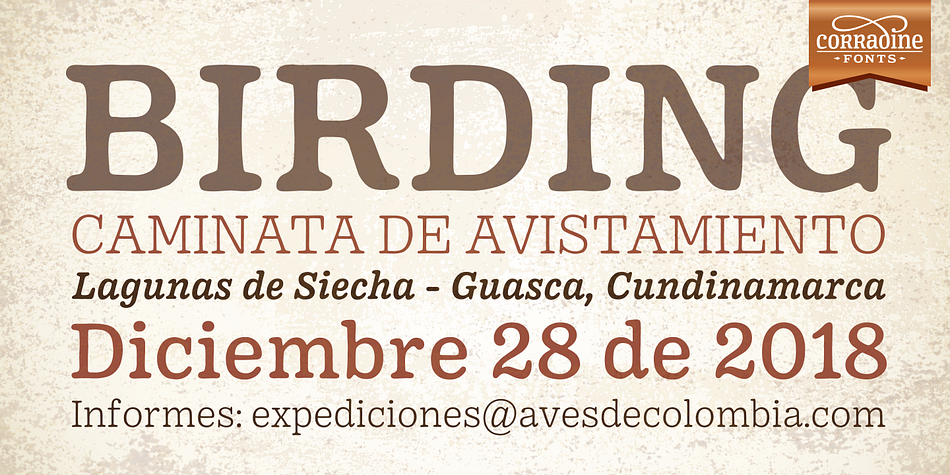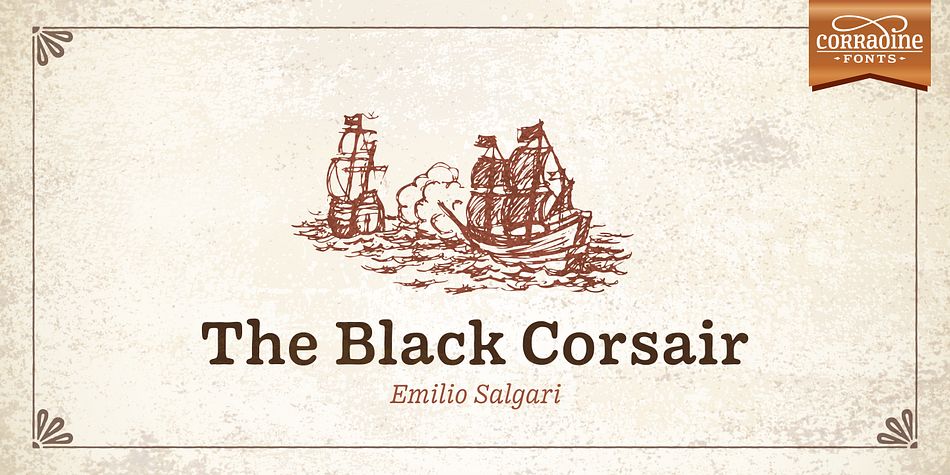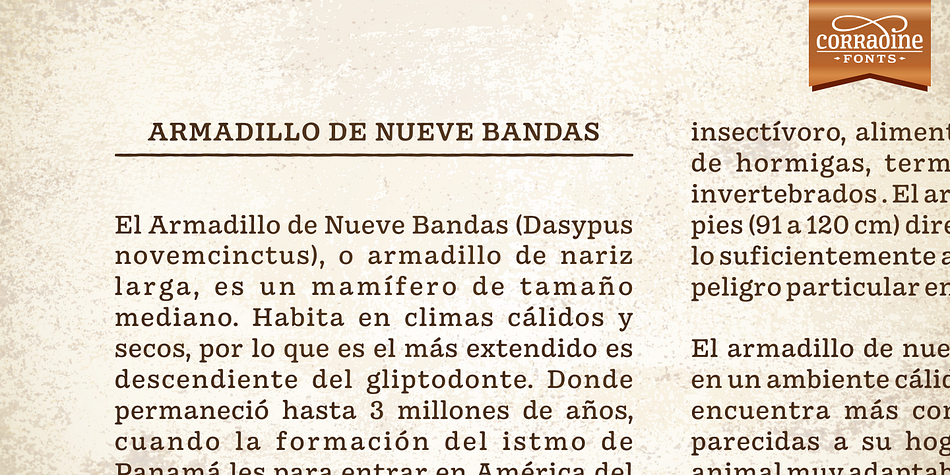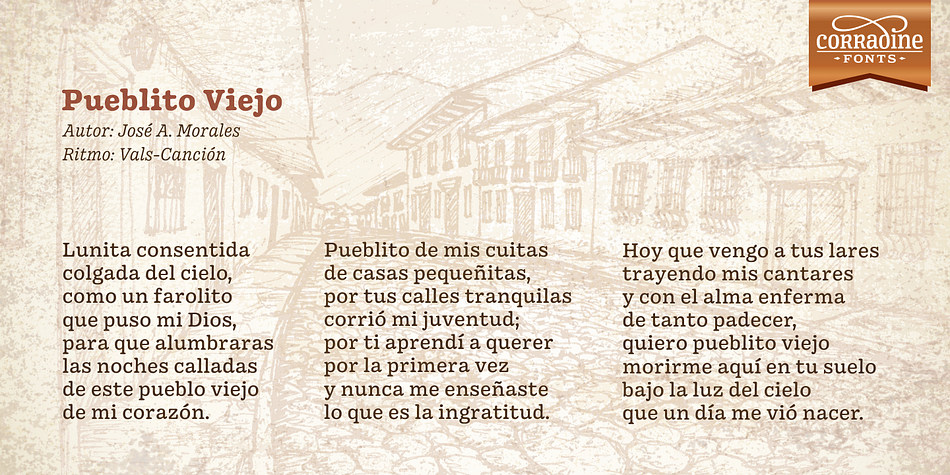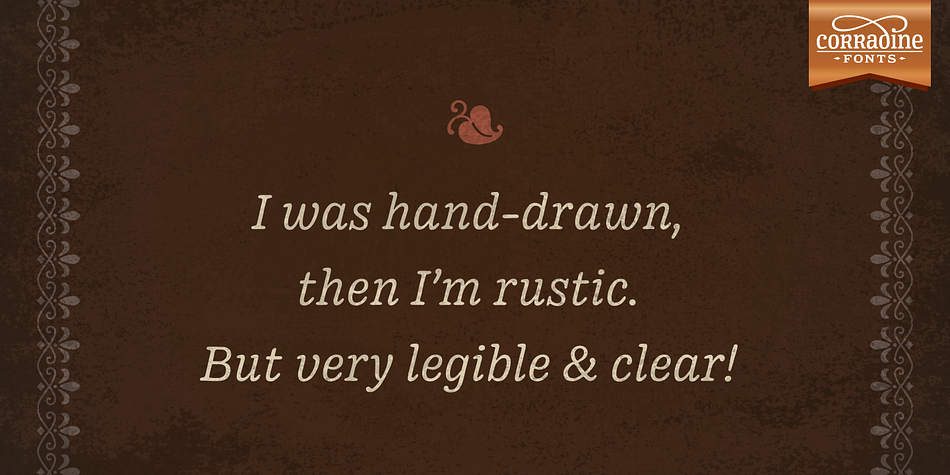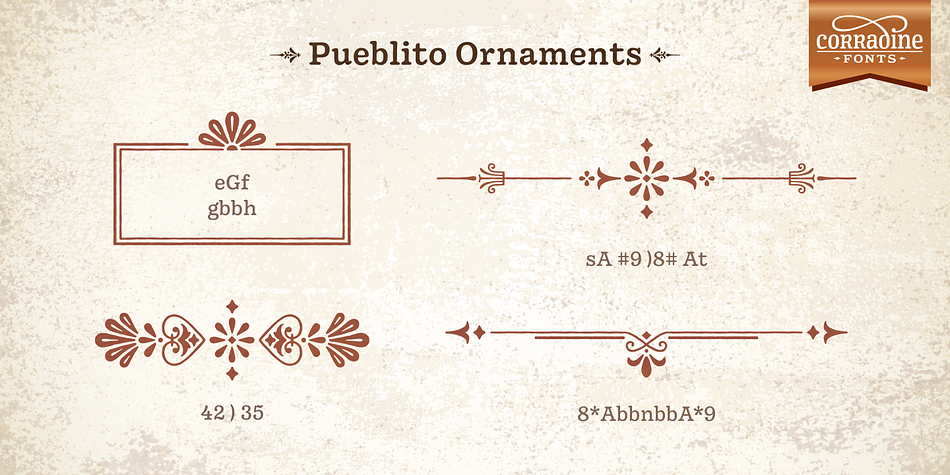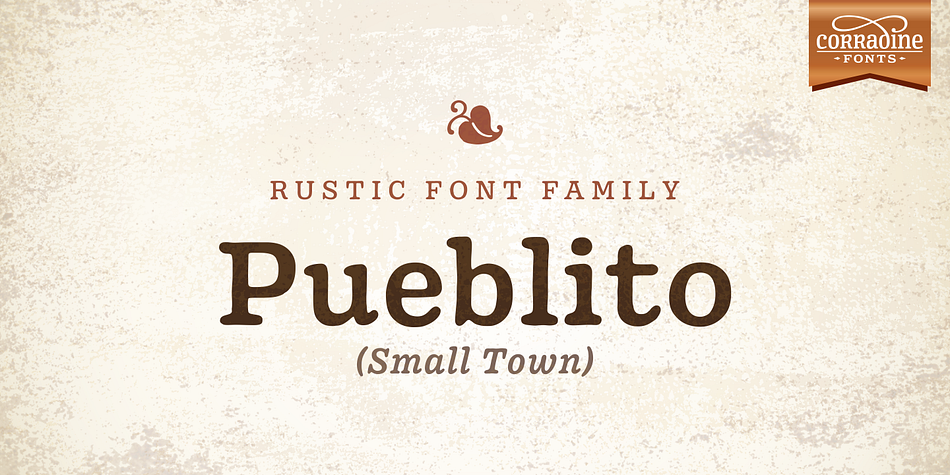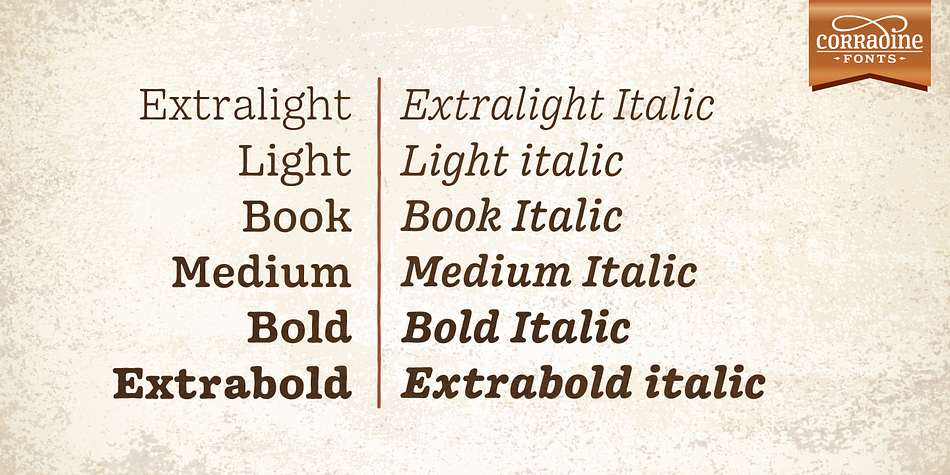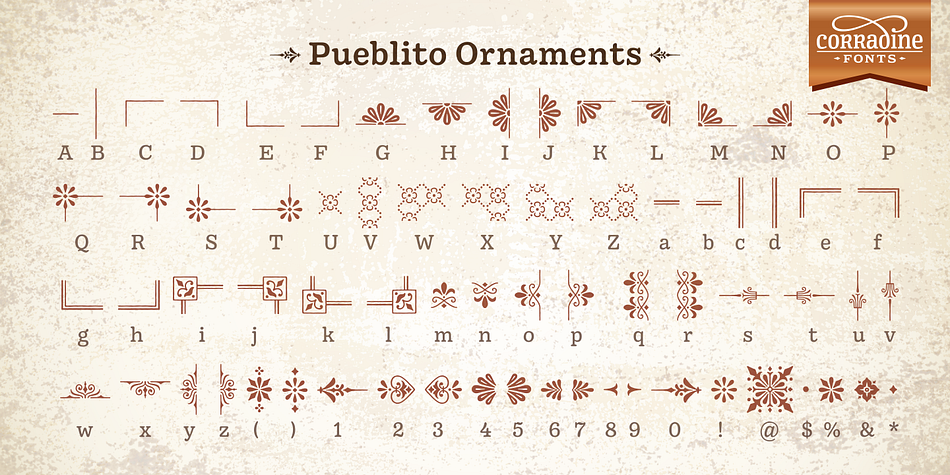
Designed by Manuel Eduardo Corradine, Pueblito is a dingbat and serif font family. This typeface has thirteen styles and was published by Corradine Fonts.
Pueblito is a hand drawn font with a rustic and antique appearance. Was inspired from old books and newspapers but express a very own personality and not necessary represent a specific classic style. The family consists of twelve fonts in six weights plus a set of ornaments in order to compose all kind of texts.
Using Pueblito in your projects, you can obtain an original aged flavor and just by adding a subtle texture effect will help you to obtain the desired vintage look.